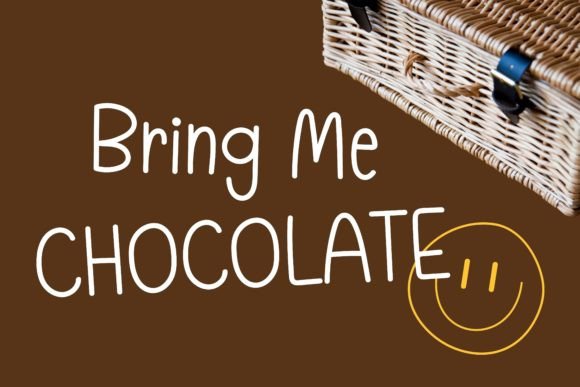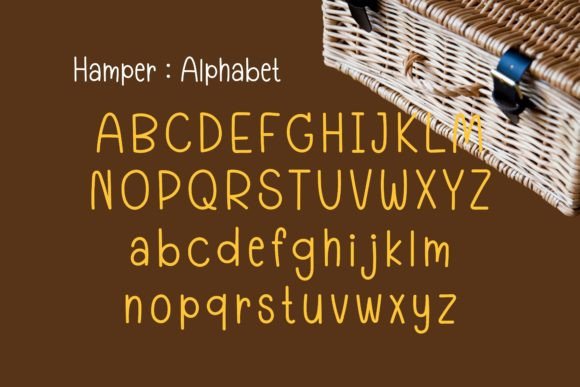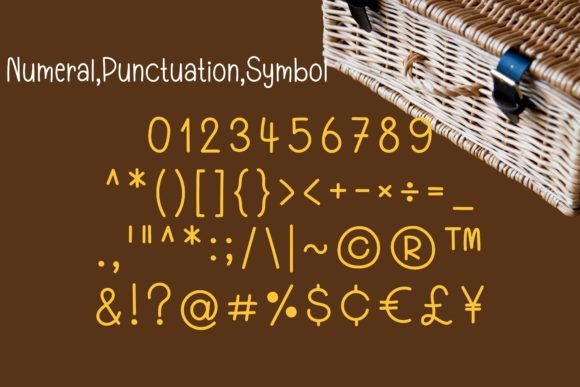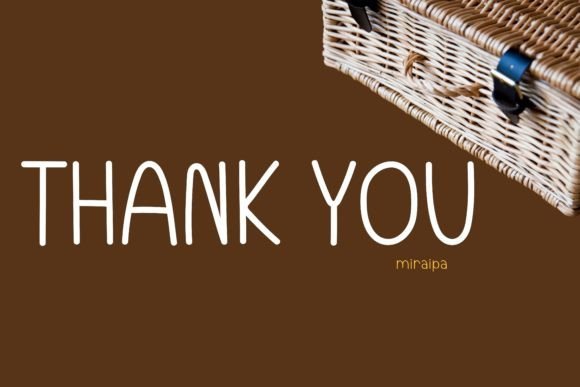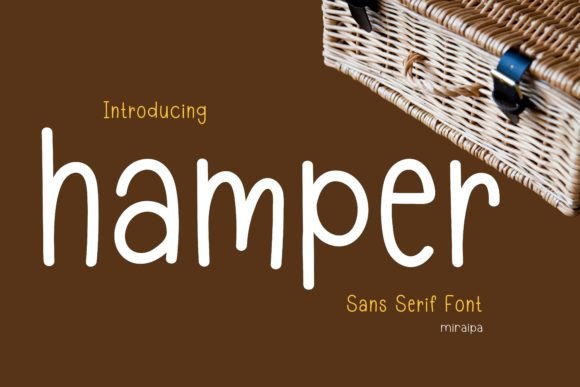
Introducing Hamper Font: The Perfect Addition to Your Design Arsenal
Are you a designer, crafter, or DIY enthusiast looking for a font that can add a touch of friendliness and whimsy to your projects? Look no further than Hamper Font, a delightful handwritten sans serif font that’s perfect for a wide range of applications. In this article, we’ll dive into the world of Hamper Font, exploring its features, uses, and benefits, and why it’s a must-have for your design library.
What is Hamper Font?
Hamper Font is a carefully crafted handwritten sans serif font that’s designed to bring a sense of cuteness and friendliness to your projects. Its unique style is perfect for adding a personal touch to your designs, making it ideal for a variety of creative endeavors. Whether you’re working on a back-to-school project, wedding invitation, or social media post, Hamper Font is sure to make your designs stand out.
Key Features of Hamper Font
- Cute and Friendly Style: Hamper Font boasts a charming handwritten sans serif style that’s sure to capture the hearts of your audience.
- Versatile: This font is perfect for a wide range of projects, from diary planners and posters to clothing and child-related designs.
- Easy to Read: The clean and simple sans serif design makes Hamper Font easy to read, even at small sizes.
- Perfect for DIY Projects: Hamper Font is designed to bring a personal touch to your DIY projects, making them look more professional and engaging.
Uses of Hamper Font
Hamper Font is an incredibly versatile font that can be used in a variety of contexts. Here are some ideas to get you started:
- Back to School: Create eye-catching posters, invitations, and decorations for the new school year.
- Weddings and Parties: Add a touch of whimsy to your wedding invitations, party decorations, and other celebratory materials.
- Fall, Halloween, and Christmas: Create spooky and festive designs for the holiday season, from Halloween costumes to Christmas cards.
- Blogs and Social Media: Use Hamper Font to create engaging blog posts, social media graphics, and other online content.
- Clothing and Accessories: Design custom clothing, hats, and other accessories with Hamper Font for a unique and personalized look.
- Child-Related Designs: Create adorable designs for children’s birthday parties, nursery decor, and kids’ clothing.
- Greeting Cards and Invitations: Use Hamper Font to create custom greeting cards, invitations, and thank-you notes.
Benefits of Using Hamper Font
So why should you choose Hamper Font for your design projects? Here are just a few benefits:
- Adds a Personal Touch: Hamper Font brings a sense of friendliness and approachability to your designs, making them more engaging and relatable.
- High-Quality Design: Hamper Font is designed to look great in a variety of contexts, from print to digital.
- Perfect for DIY Enthusiasts: Hamper Font is a great choice for DIY enthusiasts who want to add a professional touch to their projects.
In conclusion, Hamper Font is a delightful handwritten sans serif font that’s perfect for designers, crafters, and DIY enthusiasts. Its cute and friendly style makes it ideal for a wide range of projects, from back-to-school posters to wedding invitations and social media posts. With its ease of use, high-quality design, and versatility, Hamper Font is a must-have addition to your design library. So why wait? Add Hamper Font to your collection today and bring a touch of friendliness and whimsy to your designs!